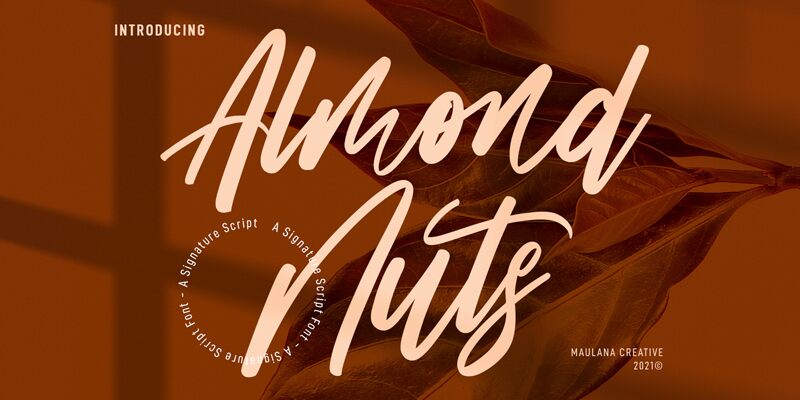
Almond Nuts Free Regular
Almond Nuts is a charming and versatile handwritten font designed by Maulana Creative. Its semi-light weight and condensed width make it perfect for adding a touch of elegance to any project, from wedding invitations to product packaging. The playful yet refined style of Almond Nuts will bring your designs to life, evoking a sense of warmth and familiarity. Use this font for everything from greeting cards to social media graphics, or even as an accent in your website design. With Almond Nuts, the possibilities are endless.